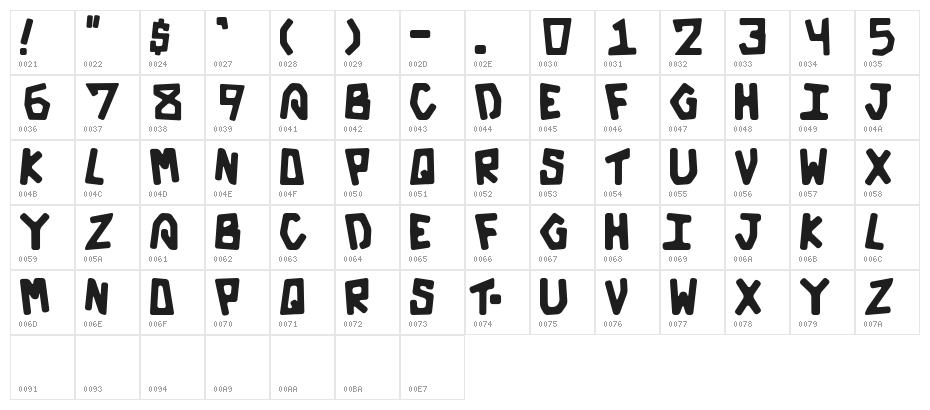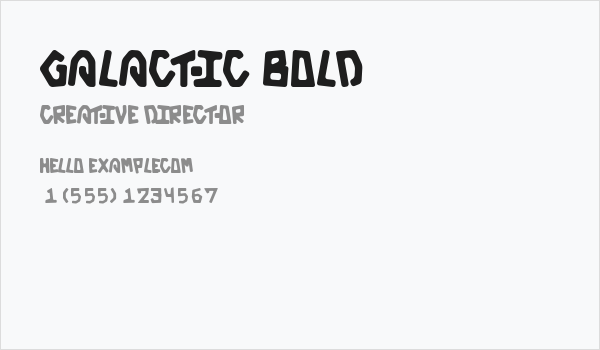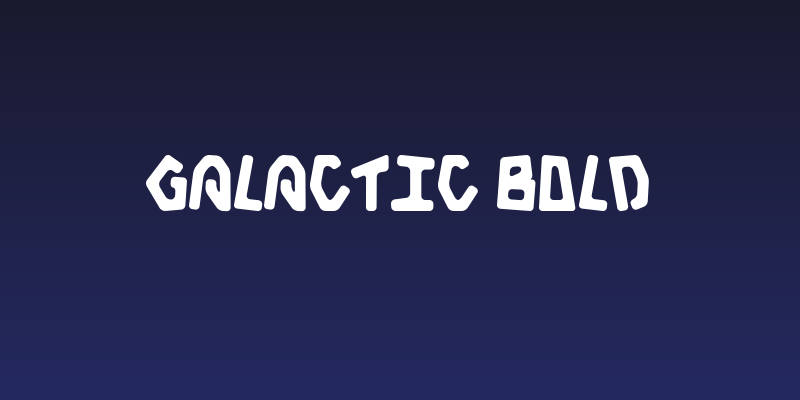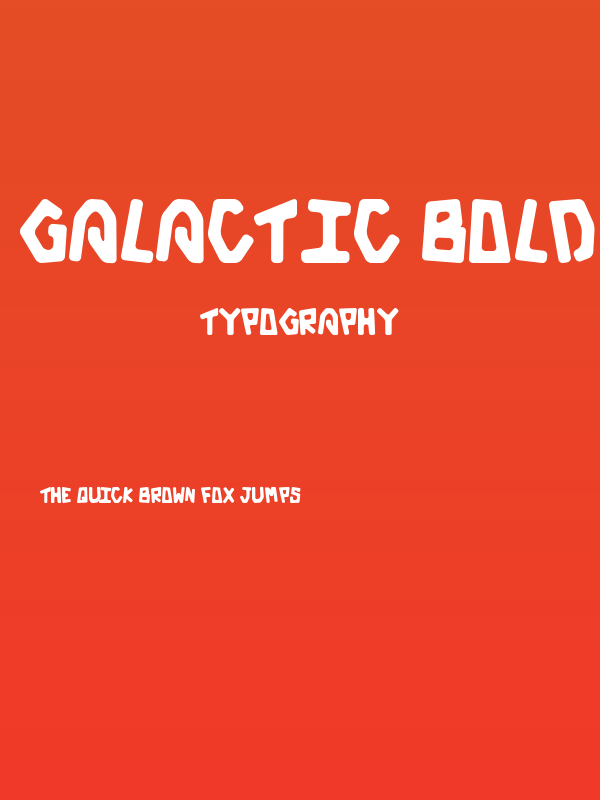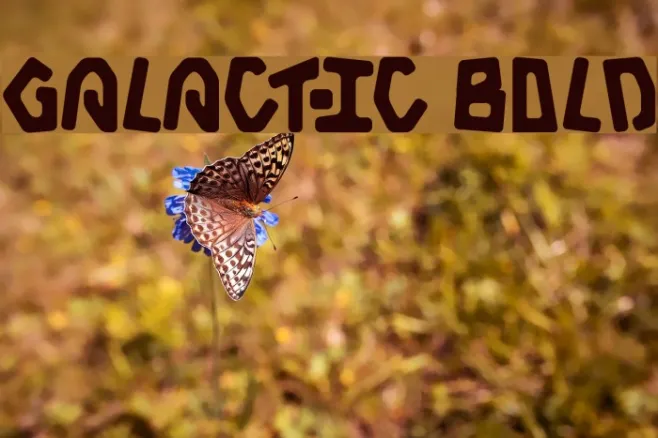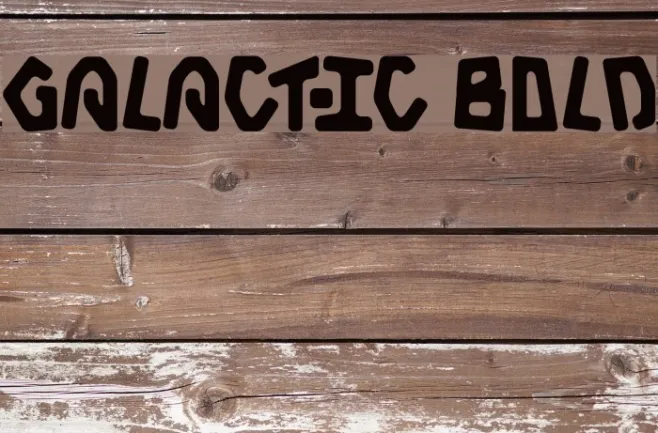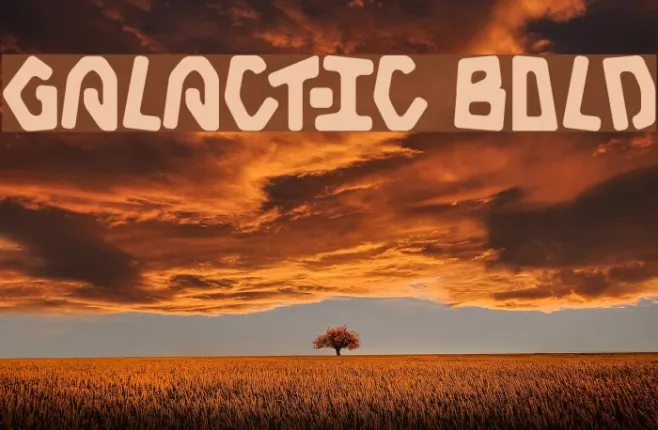
Galactic Bold Font
Galactic Bold Description
This font features a bold and playful design with thick, rounded strokes that give it a cartoonish and futuristic appearance. The characters are slightly irregular, adding a dynamic and energetic feel. The uppercase and lowercase letters maintain a consistent style, with a strong emphasis on boldness and visibility. The numbers and special characters follow the same design principles, ensuring uniformity across all elements. This font is ideal for projects that require a fun and eye-catching aesthetic.
| Overall Style | Futuristic, Playful |
| Proposed Projects | Perfect for comic books, children's books, video game titles, and playful branding. |